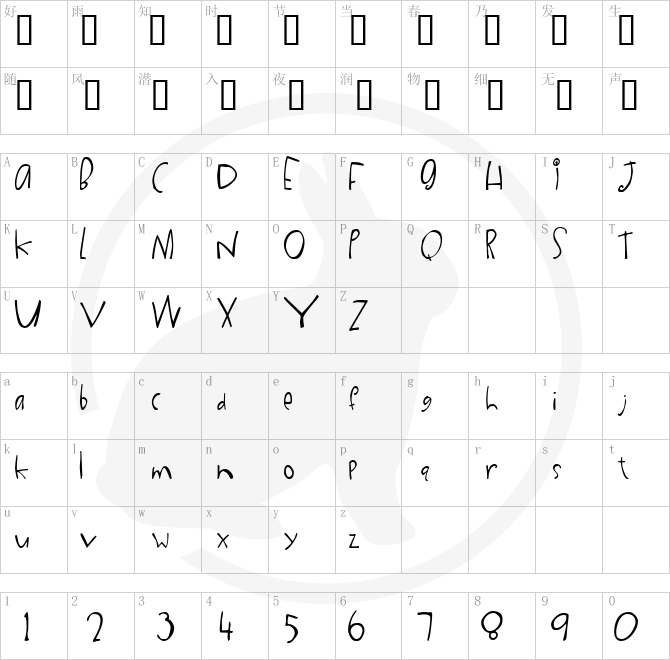
- Font Name:2Peas DW Ups and Downs
2Peas-DW-Ups-and-Downs.ttf is a very beautiful artistic font, 2Peas-DW-Ups-and-Downs.ttf is widely used in the design and printing of various books and pictures,2Peas-DW-Ups-and-Downs.ttf has a strong visual impact,2Peas-DW-Ups-and-Downs.ttf is a commonly used font in newspapers, magazines and books, and is used in posters, e-commerce Poster design, store design, logo design, font design and other fields.2Peas-DW-Ups-and-Downs.